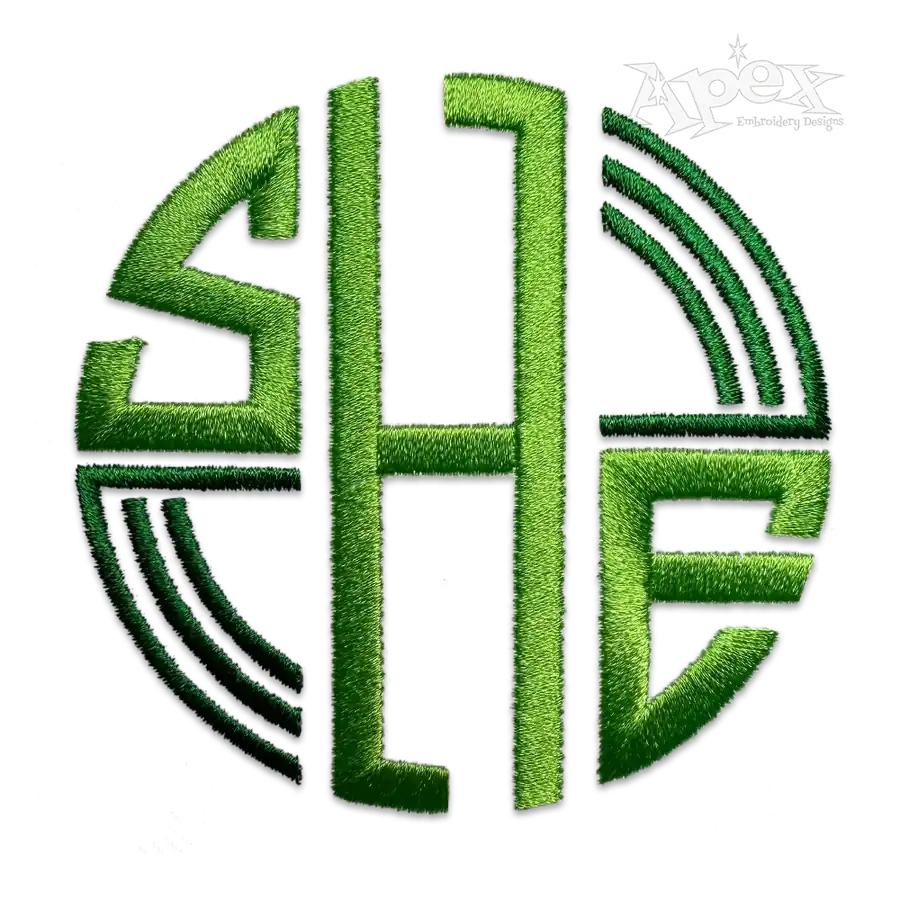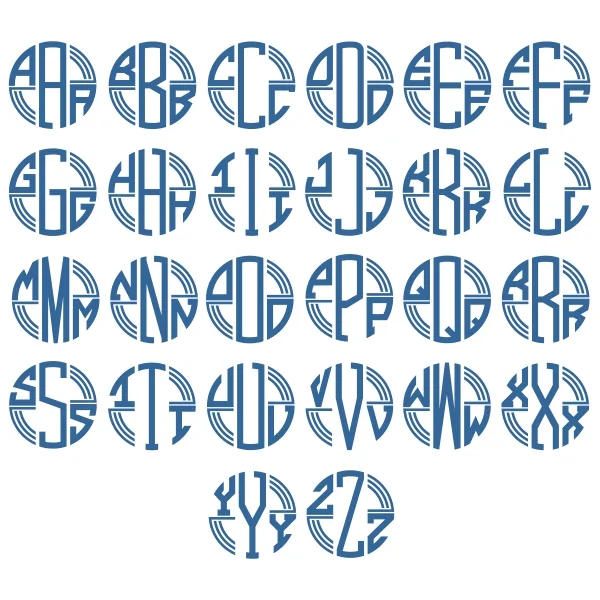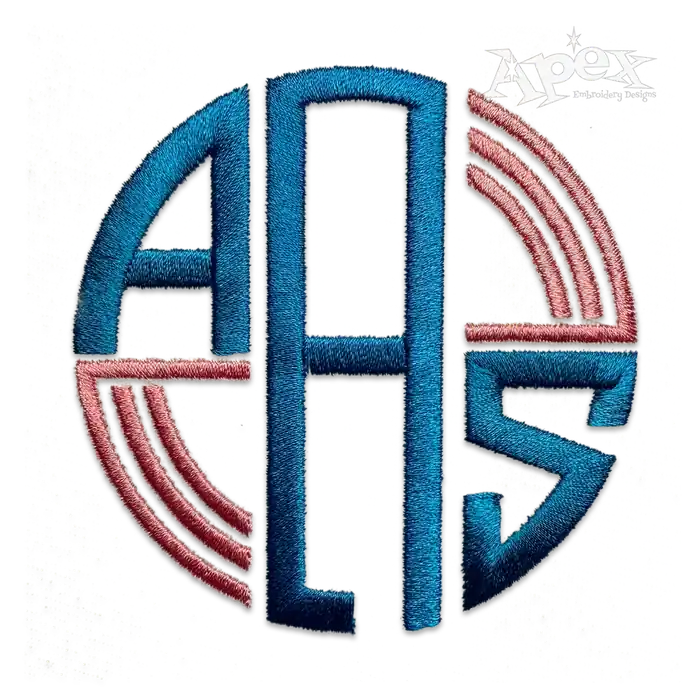
Round Lined Circle Embroidery Font
There is an enduring, quiet sophistication in the pure geometry of a circular medallion. When drafting the Round Lined Circle Embroidery Font at Apex Embroidery Designs, our goal was to marry mid-century architectural balance with the rich, tactile dimension of heirloom embroidery. Each character is enveloped within a precision-sculpted concentric circular boundary, creating an emblem that feels both classically bespoke and effortlessly modern. As the needle glides along the curved perimeters and rhythmic interior line-work, it imparts a luminous, embossed relief that instantly elevates humble textiles into personalized works of art.
Project Ideas for Round Lined Circle Embroidery Font
The clean architectural lines and framed circular motif lend themselves exquisitely to a wide spectrum of lifestyle and heirloom projects:
- Luxury Table Linens: Stitch crisp monograms in tone-on-tone or contrasting spun silk threads onto hemstitched linen cocktail napkins and formal dinner runners.
- Bespoke Resort Wear & Robes: Personalize plush waffle spa wraps, silk bridal robes, or crisp poplin cover-ups with a refined coastal aesthetic.
- Heirloom Bedding: Elevate percale duvet covers, bolster pillows, and master suite shams with a balanced, timeless emblem.
- Structured Canvas Totes: Add an unmistakable touch of personalized gifting to heavy cotton weekenders, beach bags, and tennis carryalls.
- Tailored Executive Gifts: Embellish wool felt tech sleeves, fine handkerchiefs, and tailored garment bags with crisp, professional monogramming.
Because the circular silhouette provides an innate visual equilibrium, placement is intuitive yet striking across diverse garment and textile styles:
- Corner Diagonal: Position 1.5 to 2 inches inward from the hemstitched corner of napkins, tablecloths, or pocket squares for a balanced, symmetrical drape.
- Center Chest: Place the 3-inch or 4-inch motif centered 3 to 4 inches down from the collarbone on sweatshirts, resort polos, or denim jackets for a classic collegiate-inspired emblem.
- Cuff & Hemline Accents: Utilize the 1-inch size along shirt cuffs, collar points, or lower dress hems for subtle, bespoke understated branding.
- Centered on Decorative Borders: Nest the circular medallion squarely between woven border bands on velour bath towels or accent throw cushions.
Round Lined Circle Embroidery Font Craft & Letterform Details
The true charm of this typeface lies in its calculated rhythm between negative space and rich thread density. Our digitizers deliberately engineered each character with dual concentric satellite rings that act as both frame and architectural anchor. Rather than flat, lifeless run-stitches, the outer linework utilizes calibrated satin columns with precisely angled turning stitches that catch ambient light from every direction.
Inside the circle, the central letterform flows seamlessly into the perimeter, balancing bold interior curves with featherweight structural lines. Every entry and exit point has been choreographed to minimize travel threads and eliminate puckering on woven grounds. By adjusting density curves independently across all four digitizations, the 1-inch maintains razor-sharp clarity without thread buildup, while the 4-inch size displays rich, billowy satin columns that feel wonderfully luxurious underhand.